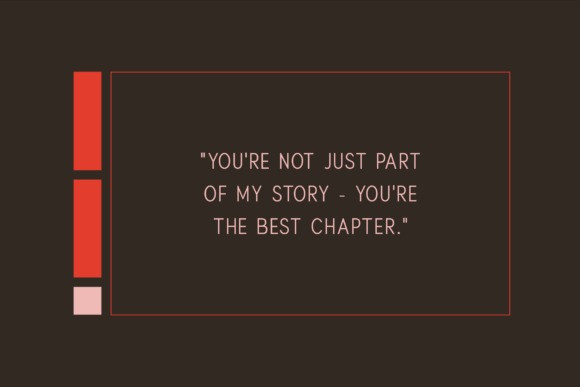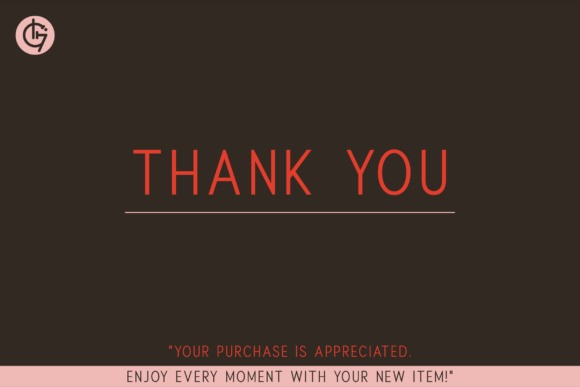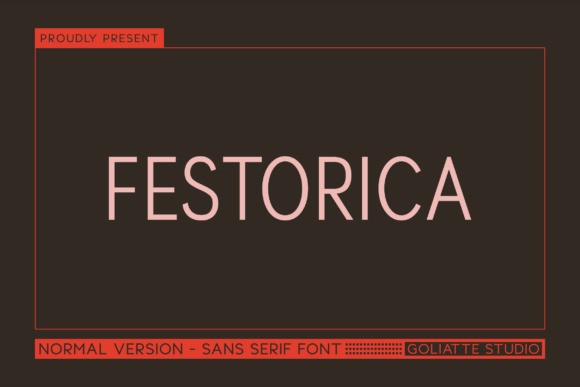
Festorica Font
Festorica Font, the bold, all-caps sans serif that’s basically the Beyoncé of fonts — clean, confident, and impossible to ignore. With its sleek lines and “I-woke-up-like-this” minimalist style, Festorica brings authority and impact to any project. Logo? Website? Billboard in Times Square? Festorica is ready to steal the show with its sharp, crisp edges.
This font isn’t just a pretty face — it’s built on a rock-solid geometric structure, making it as versatile as your favorite black T-shirt. From high-tech apps to luxury branding, Festorica is that reliable friend who shows up, looks flawless, and makes everything better. And did we mention it’s all caps? Yeah, it’s shouting — but in a stylish, totally professional way.
Why Designers Love It
It’s bold. It’s clean. It’s modern. And yes, it’s ridiculously readable. Whether you’re crafting giant headlines or working with tiny text blocks, Festorica keeps your design looking sharp and intentional.
Who Gets the VIP Invite
Brands, agencies, and designers who want to turn heads — this is your jam. Perfect for tech startups, corporate rebrands, or that luxury project where elegance is non-negotiable, Festorica is the font that brings style and clarity to the table.
Make an entrance. Leave an impression. Be unforgettable. That’s Festorica.